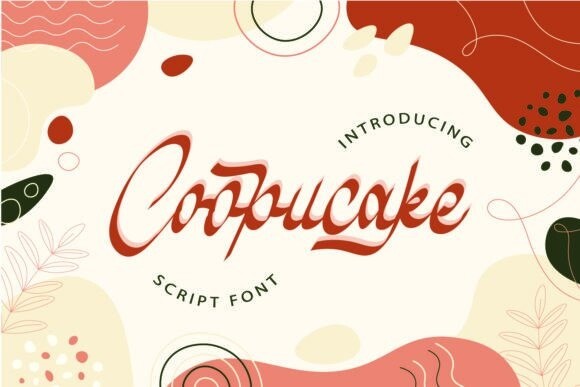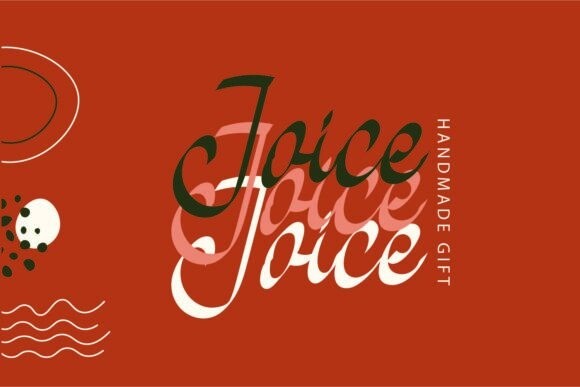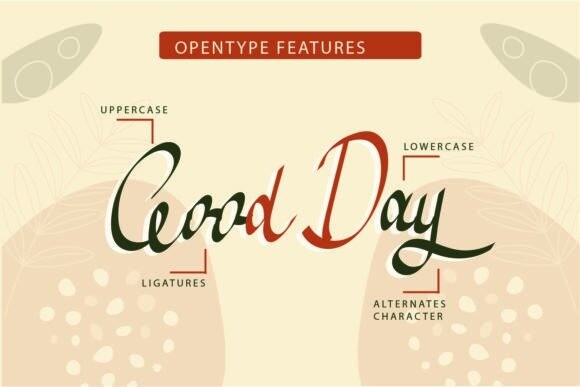
Coopucake Font
Coopucake is a modern and cool handwritten script font. Fall in love with its incredibly distinct and timeless style and use it to create spectacular designs!